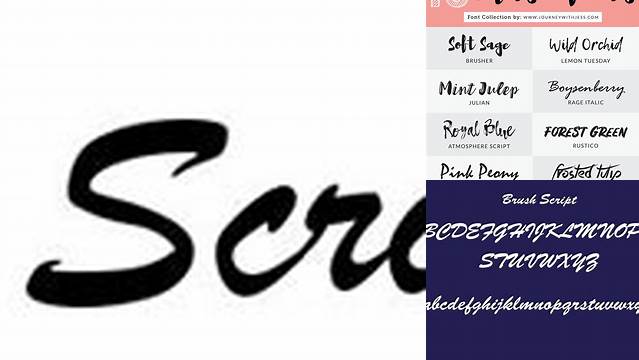
Brush Script Italic: Free Font Download Guide
Hey guys! Ever stumbled upon a font that just oozes classic charm and a touch of elegance? That's Brush Script Italic for you! It's like the handwritten note of the font world, adding a personal and stylish flair to any project. Whether you're designing invitations, crafting logos, or just playing around with typography, this font can seriously elevate your game. So, let's dive into the world of Brush Script Italic and explore how you can snag it for free and put it to work!
1. What is Brush Script Std Italic?
Brush Script Std Italic isn't just another font; it's a statement. Think of it as the cool cousin of traditional fonts, bringing a sense of fluidity and handwritten authenticity that's hard to replicate. Officially, it’s a typeface designed to mimic handwriting, and the italic version just adds an extra swoosh of sophistication. In the design world, where everything can sometimes feel a bit too polished, Brush Script Std Italic injects a dose of warmth and personality. It’s all about making your text look like it was dashed off with a stylish brush, making it perfect for projects that need a human touch. From wedding invites to quirky branding, this font has the chops to deliver.
2. The Allure of Italic Fonts
Italic fonts have a certain je ne sais quoi, don't they? They're like the stylish accessory that instantly dresses up any text. But it’s not just about looks. Italics serve a real purpose in typography. They add emphasis, like a gentle nudge to pay attention. Brush Script Italic takes this a step further by combining the natural flow of handwriting with the visual punch of italics. The result? Text that’s both eye-catching and effortlessly elegant. Think about using it for quotes, headings, or anywhere you want to add a bit of flair. Just remember, a little goes a long way—overusing italics can dilute their impact, so use them strategically to highlight key elements and keep your design looking sharp.
3. Finding Free Brush Script Italic Fonts
4. Distinguishing Authentic Brush Script Std
So, how do you know you've got the real deal? Authentic Brush Script Std has a certain flow and consistency in its strokes that sets it apart from knock-offs. Pay close attention to the curves and connections between letters. The real version is smooth and polished, without any awkward transitions or jagged edges. Another telltale sign is the character set. Does it include all the glyphs and symbols you need? Are the kerning and spacing well-balanced? If something feels off, trust your gut. It's always better to err on the side of caution and double-check your source to avoid using a subpar font that could drag down your designs.
5. Brush Script Alternatives
Okay, so maybe you're having trouble finding the exact Brush Script Italic you're after, or perhaps you want to explore some similar vibes. No sweat! There are tons of fantastic alternatives out there that capture that handwritten, italic feel. Check out fonts like Pacifico, Dancing Script, or даже Allura. Each has its unique charm, but they all share that flowing, elegant aesthetic. Don't be afraid to mix and match to find the perfect fit for your project. Experimenting with different fonts can lead to unexpected discoveries and help you create a truly unique design.
7. Using Brush Script in Graphic Design
So, you've got Brush Script Italic installed and ready to roll. Now comes the fun part: putting it to work! This font is a natural fit for projects that need a touch of elegance and personality. Think wedding invitations, greeting cards, logos for boutique businesses, or even stylish blog headers. When using it, keep in mind that it's best used sparingly. It's a display font, meaning it's designed to catch the eye, not to be used for large blocks of text. Pair it with a simple, clean sans-serif font for body text to create a balanced and visually appealing design. And don't be afraid to play with colors and textures to really make it pop!
8. Licensing Considerations for Free Fonts
9. Pairing Brush Script with Other Fonts
The right font pairing can make or break a design. Brush Script Italic is a bit of a diva, so you need to choose its partners wisely. Generally, it plays well with simple, clean sans-serif fonts like Helvetica, Arial, or Open Sans. These fonts provide a nice contrast to the flowing curves of Brush Script, creating a balanced and harmonious look. Avoid pairing it with other overly decorative fonts, as that can create a cluttered and overwhelming design. Think of it like putting together an outfit: you want to balance the statement piece with classic, understated pieces to create a cohesive and stylish look.
30. The Emotional Impact of Brush Script
Fonts have the power to evoke emotions. Brush Script Italic, with its flowing curves and handwritten style, can evoke feelings of warmth, nostalgia, and romance. It can make your design feel more personal, more approachable, and more human. Think about the emotions you want to evoke and choose a font that aligns with your message. Whether you're designing a wedding invitation, a logo for a small business, or a social media graphic, Brush Script can help you connect with your audience on an emotional level.